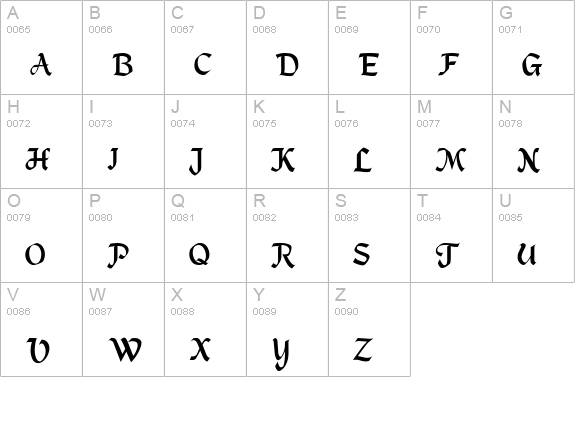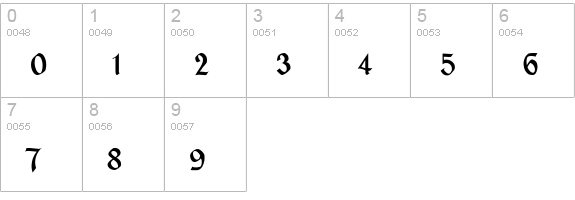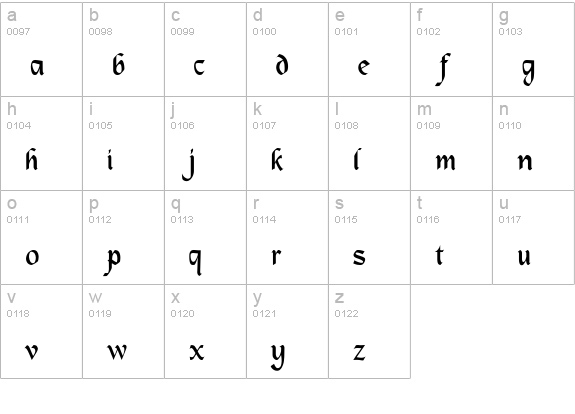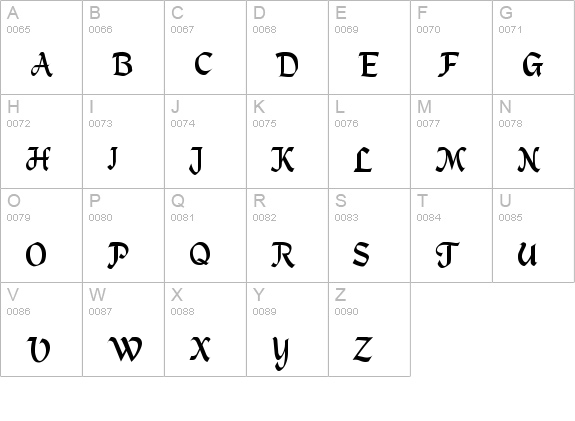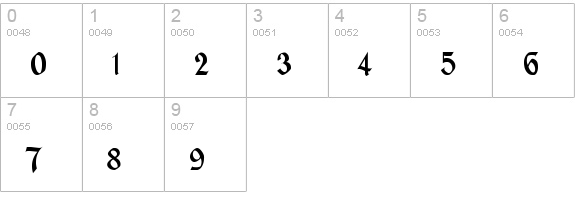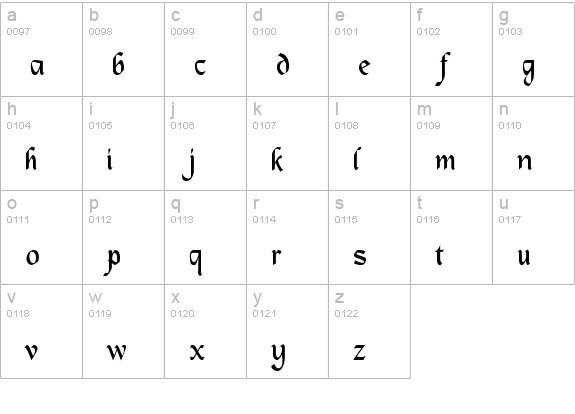
MacHumaine-Light Font Details
MacHumaine-Light is a refined, elegant variant in the MacHumaine typeface family \xE2\x80\x94 well suited to elegant body text, refined sub-headings, and luxury branding.
MacHumaine-Light is a stunningly elegant font that exudes sophistication and grace. Its delicate and refined letterforms make it the perfect choice for projects that require a touch of class and elegance. The light weight of this font adds a subtle and airy feel, making it ideal for designs that demand a sense of lightness and tranquility. But what truly sets MacHumaine-Light apart is the fact that it is completely free. Yes, you read that right - this gorgeous font is available to download at absolutely no cost. FontsMarket.com is proud to offer this remarkable typeface as a gift to the design community, allowing designers and creatives to access a high-quality font without any financial burden. With MacHumaine-Light, you can effortlessly elevate your designs to a whole new level. Whether you are working on a brand identity, a website, a brochure, or any other creative project, this font will bring a touch of sophistication and refinement that will leave a lasting impression. The clean and crisp lines of MacHumaine-Light make it highly readable, ensuring that your message is conveyed with clarity and precision. Its versatility allows it to adapt to various design styles and settings, making it a valuable addition to any designer's toolkit. So why wait? Head over to FontsMarket.com and download MacHumaine-Light today. Embrace the opportunity to enhance your designs with this exceptional font, and experience the freedom of creativity that comes with having access to a high-quality typeface that won't cost you a dime.